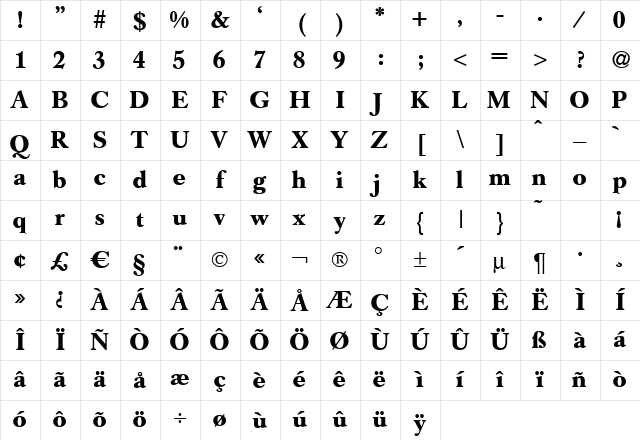
GermanCaslon Bold
GermanCaslon Family
GermanCaslon Bold
Design Context for GermanCaslon
GermanCaslon is a composed and adaptable typeface that performs quietly and consistently across a wide range of design contexts. Its bold stroke weight gives it real presence on the page.